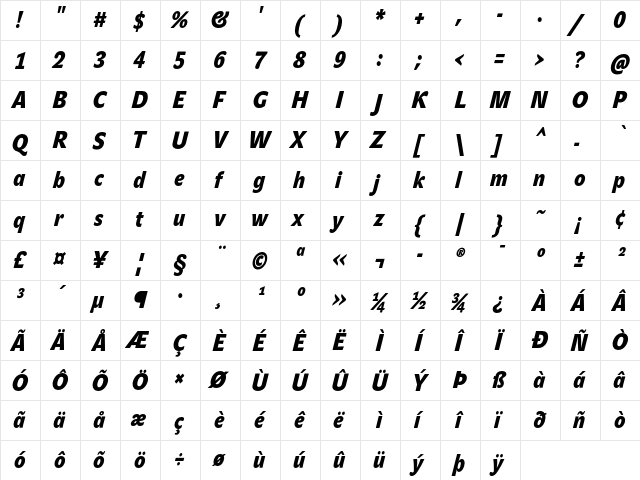
JohnSansCond Black Pro Italic Font Preview
Design Context for JohnSansCond Black Pro Typeface
JohnSansCond Black Pro takes a measured approach to typography — its balanced proportions and neutral character make it a reliable workhorse for both digital and print work. Its italic angle brings a sense of urgency and motion to the letterforms. Its narrow stance lets it pack a punch even in space-constrained designs.
Pro Tip: Use JohnSansCond Black Pro for emphasis, pull quotes, and subheadings where its slanted energy can add rhythm to the layout.